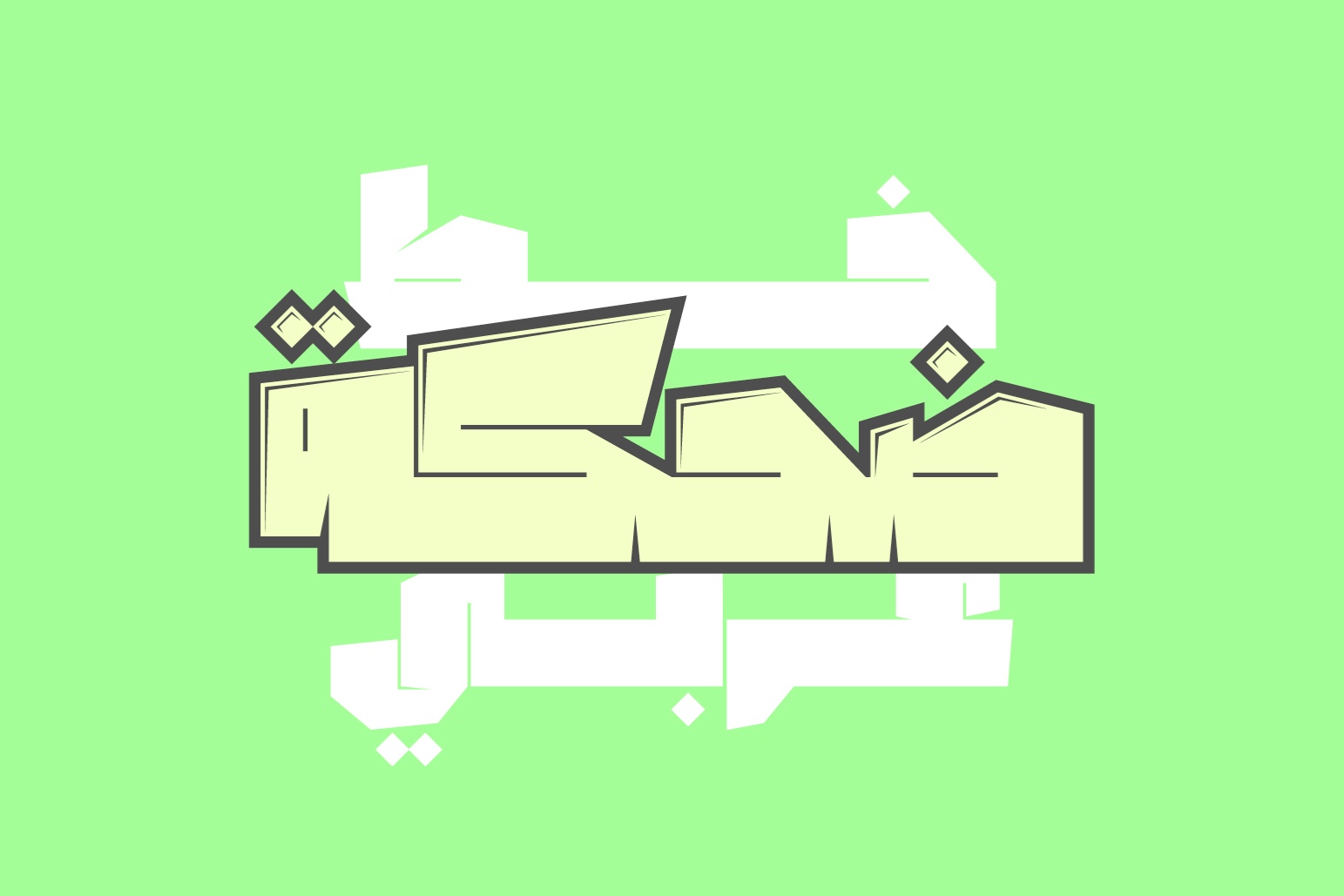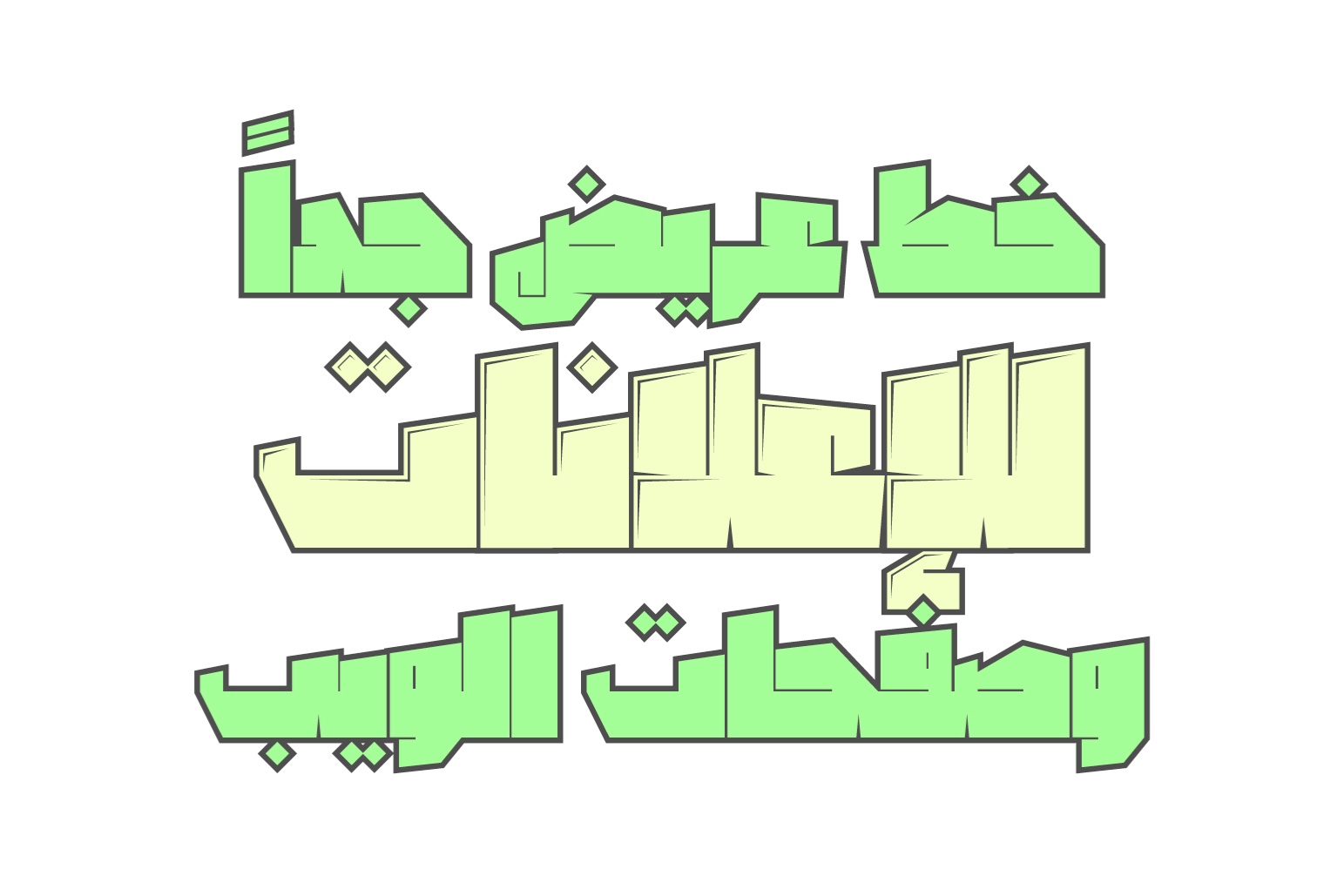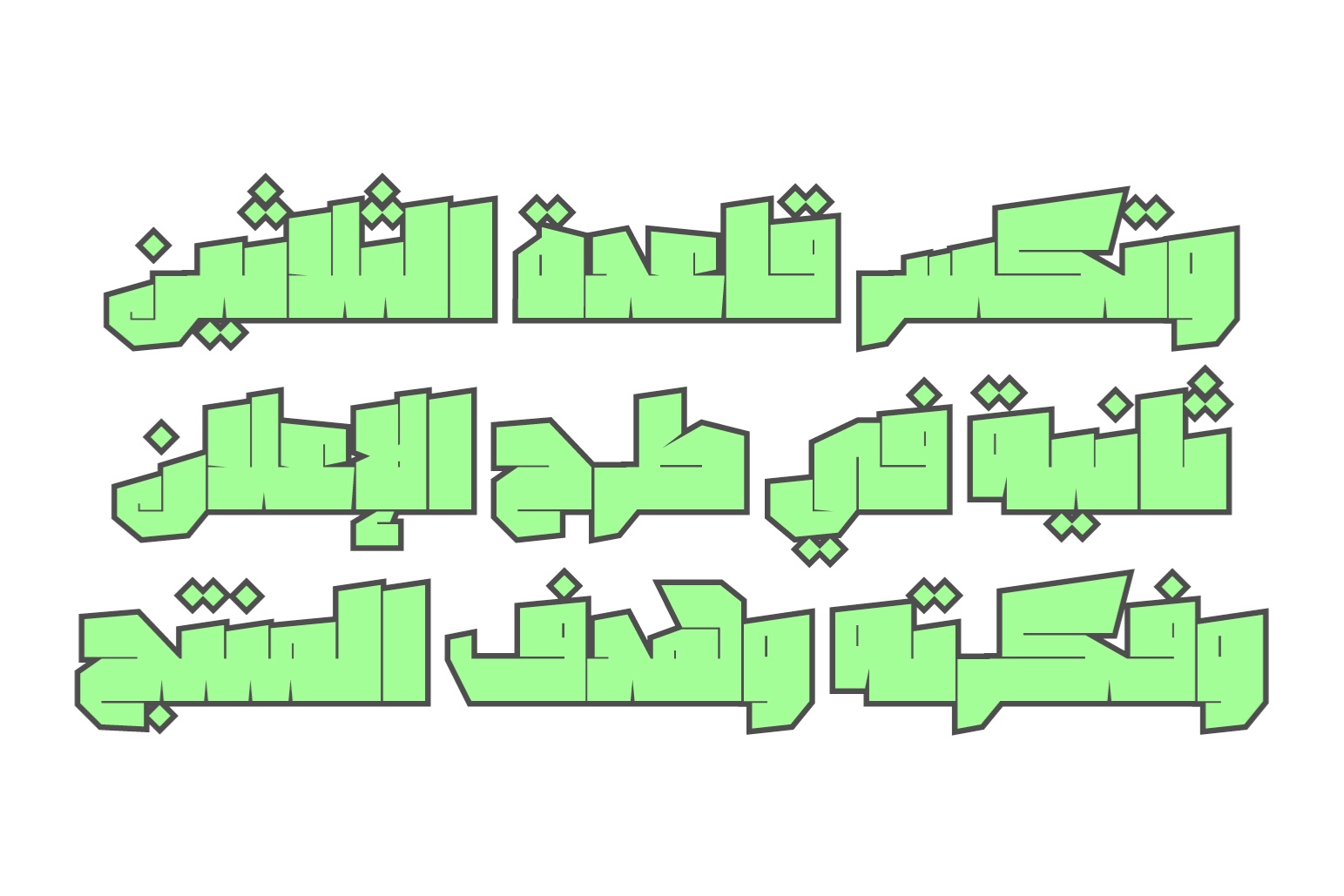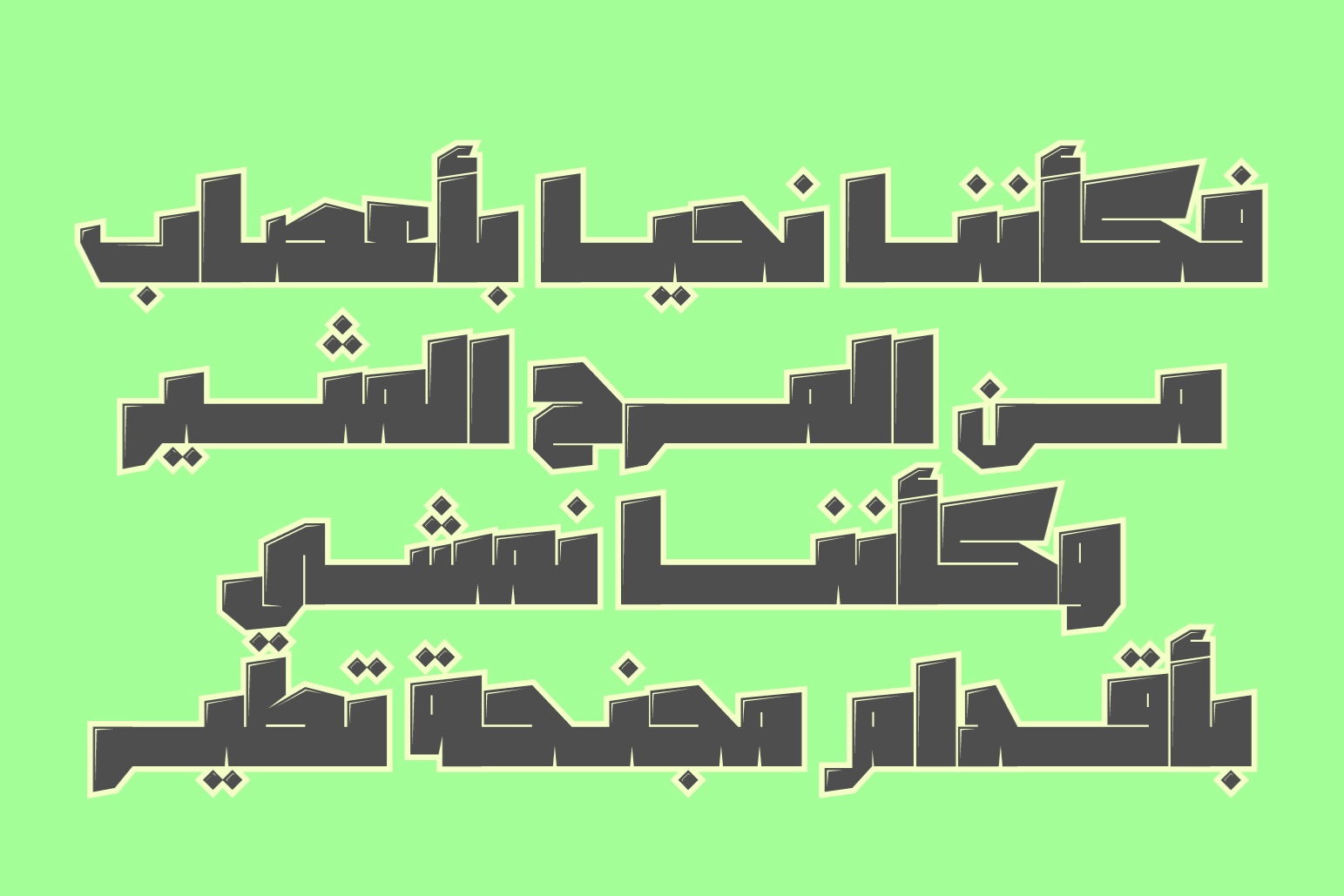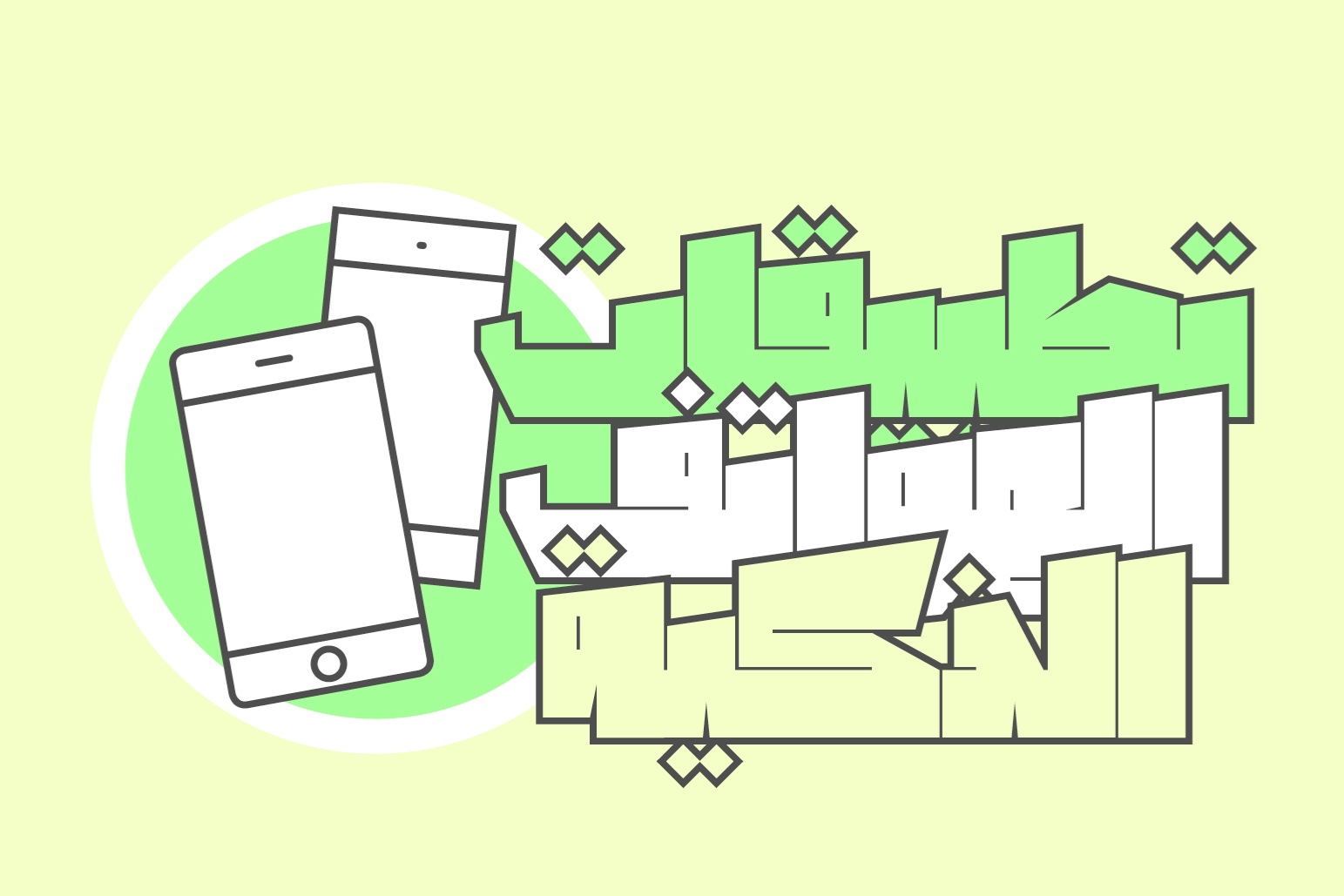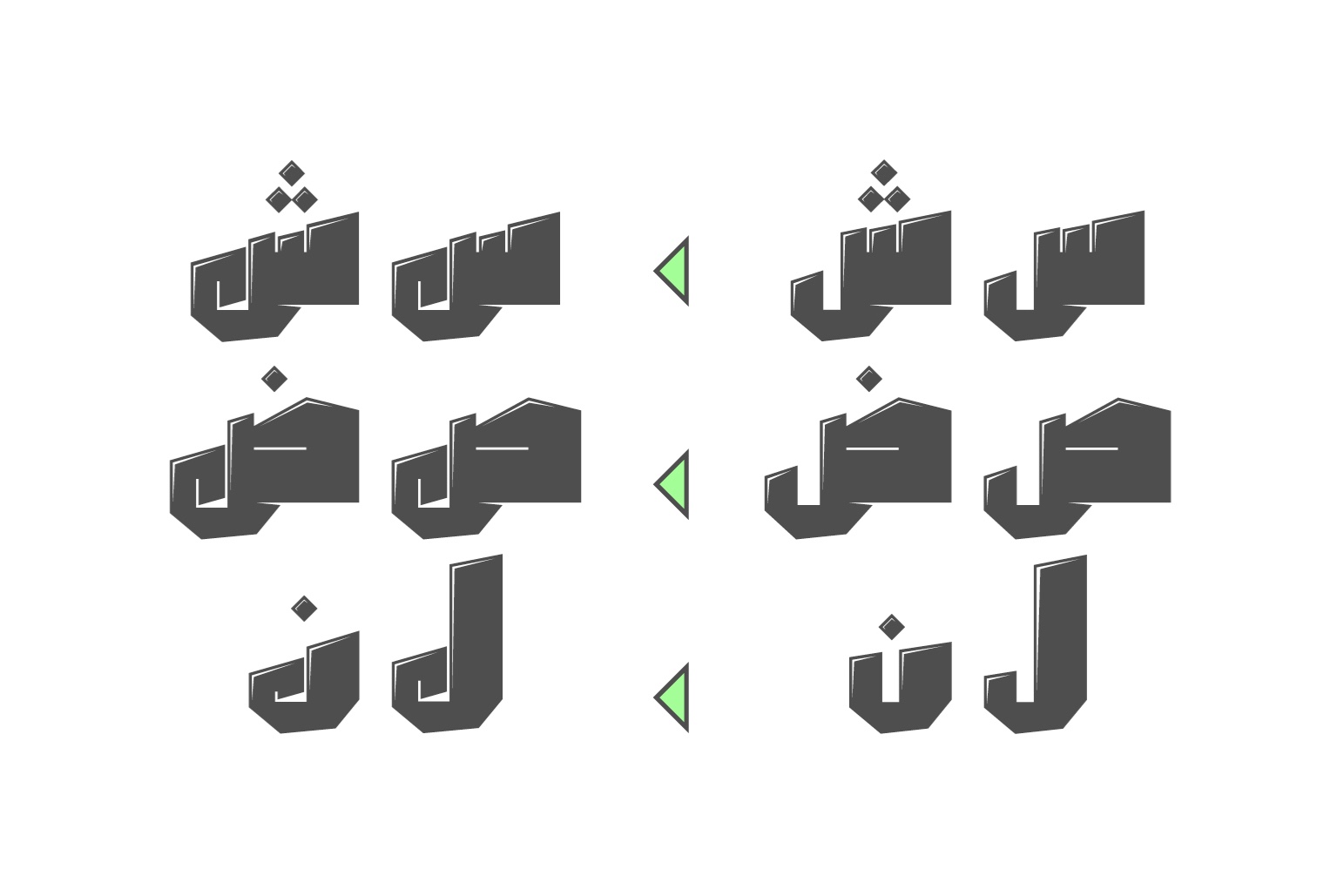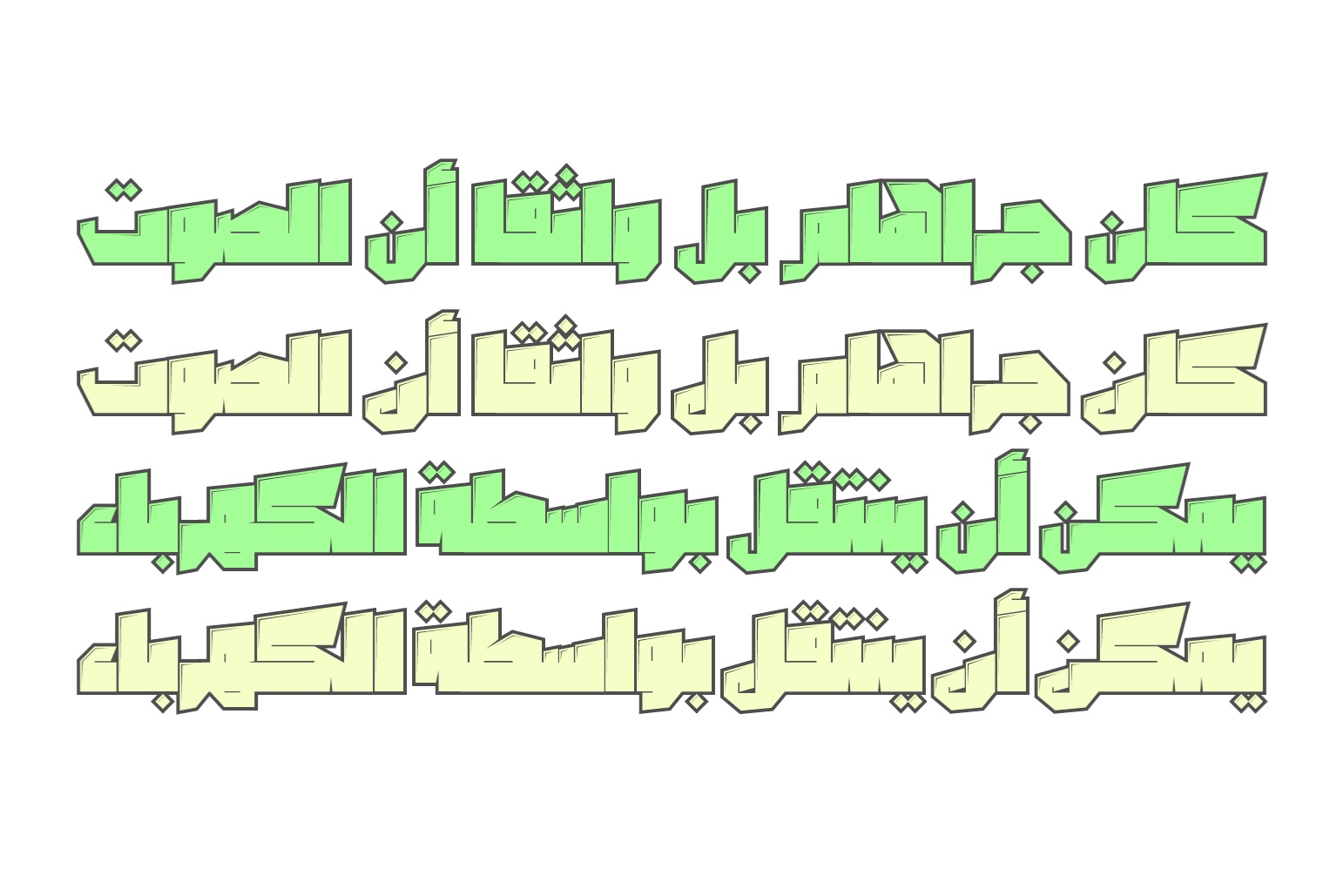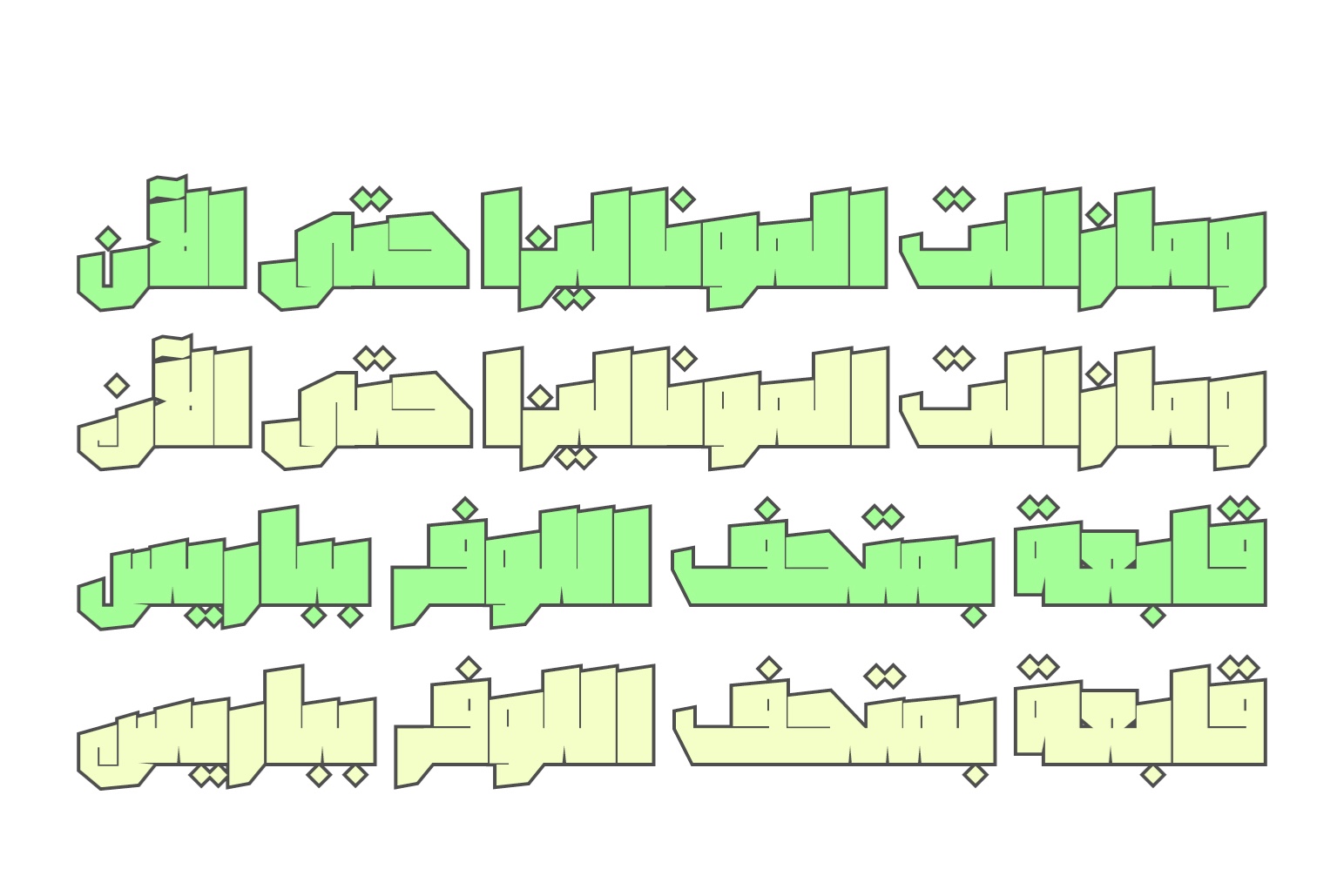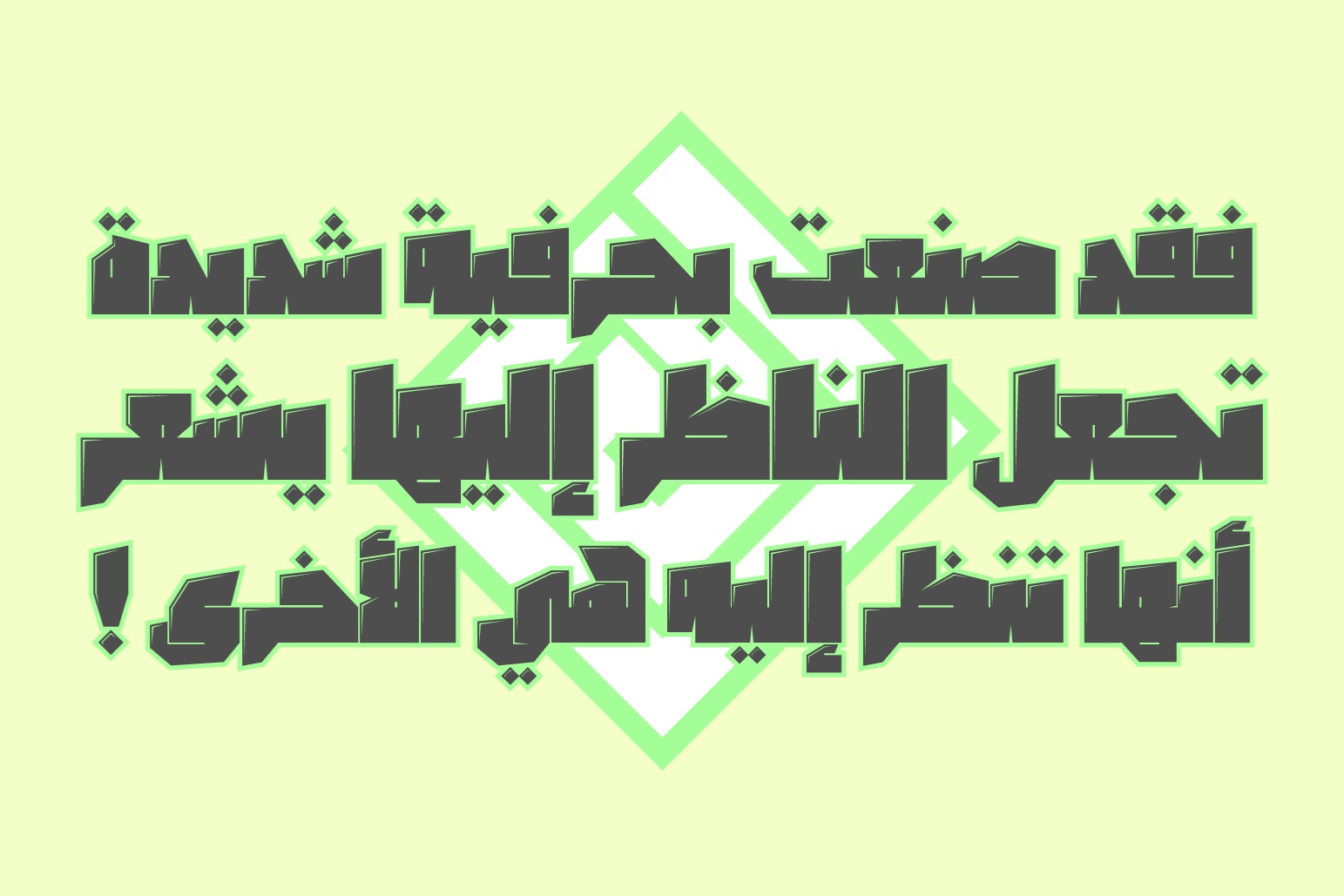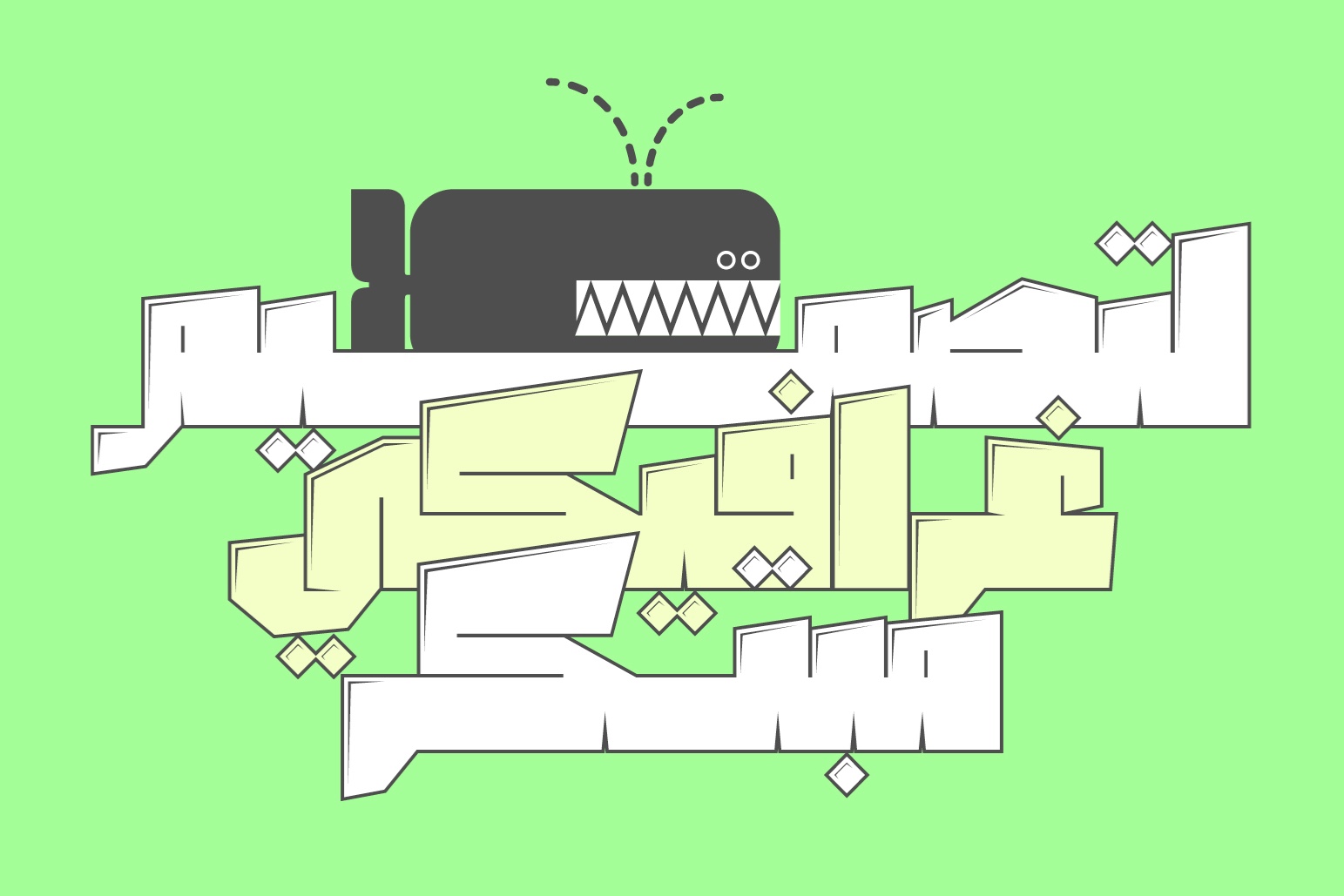
Dahka is a humorous Arabic font that comes in three styles, Thin, Normal and Embossed. It suits various range of creative projects including web design, advertising, branding and mobile applications.
Thin, Normal and Embossed